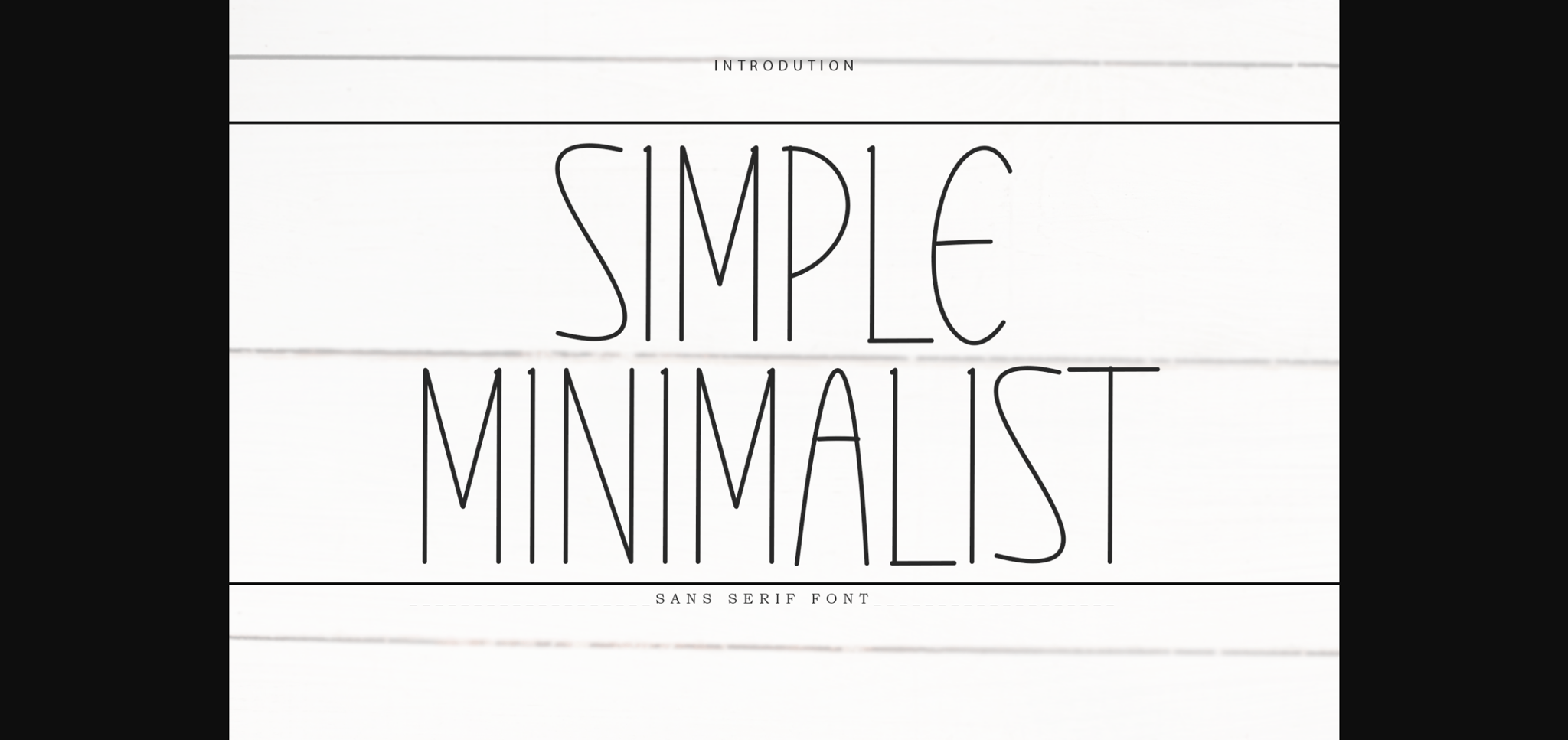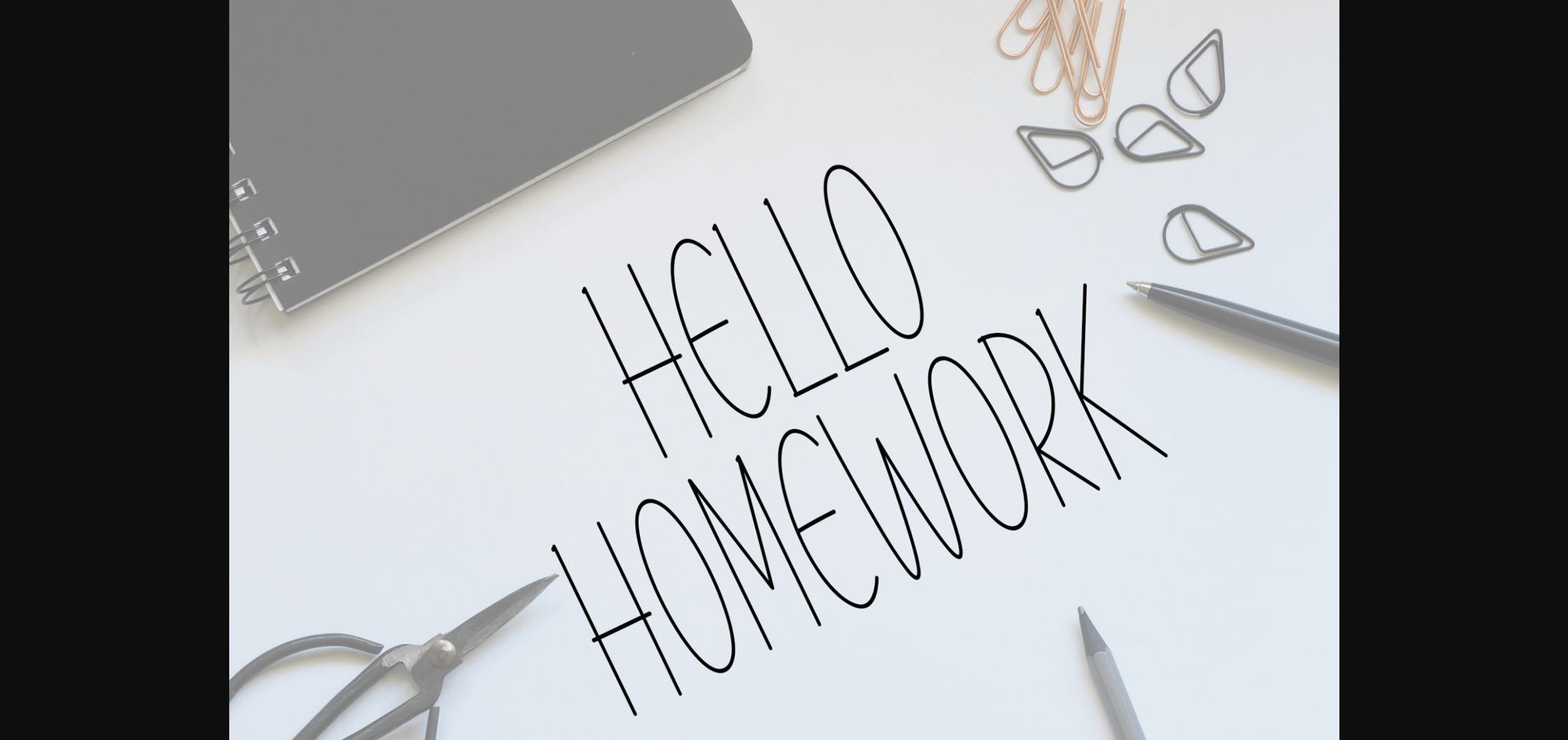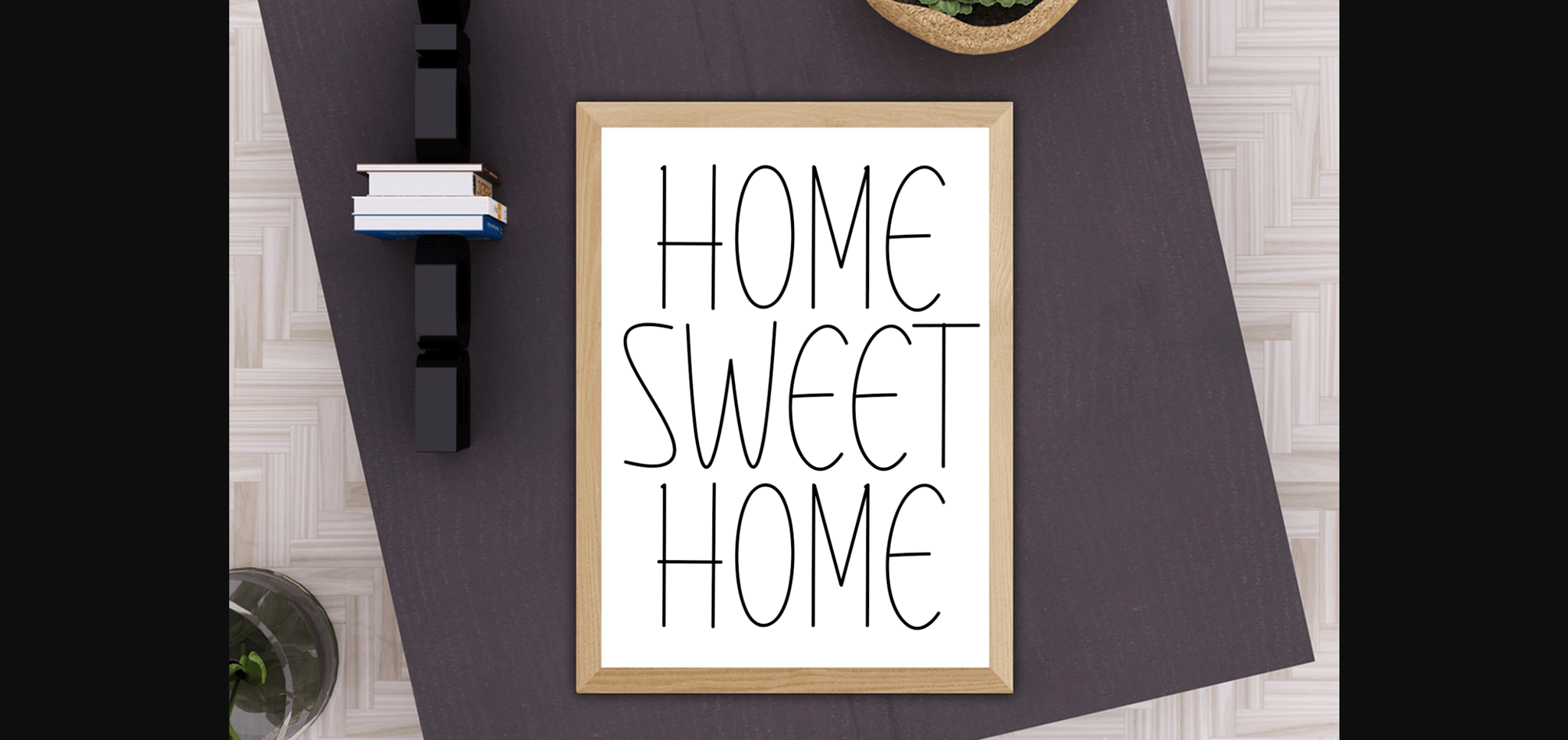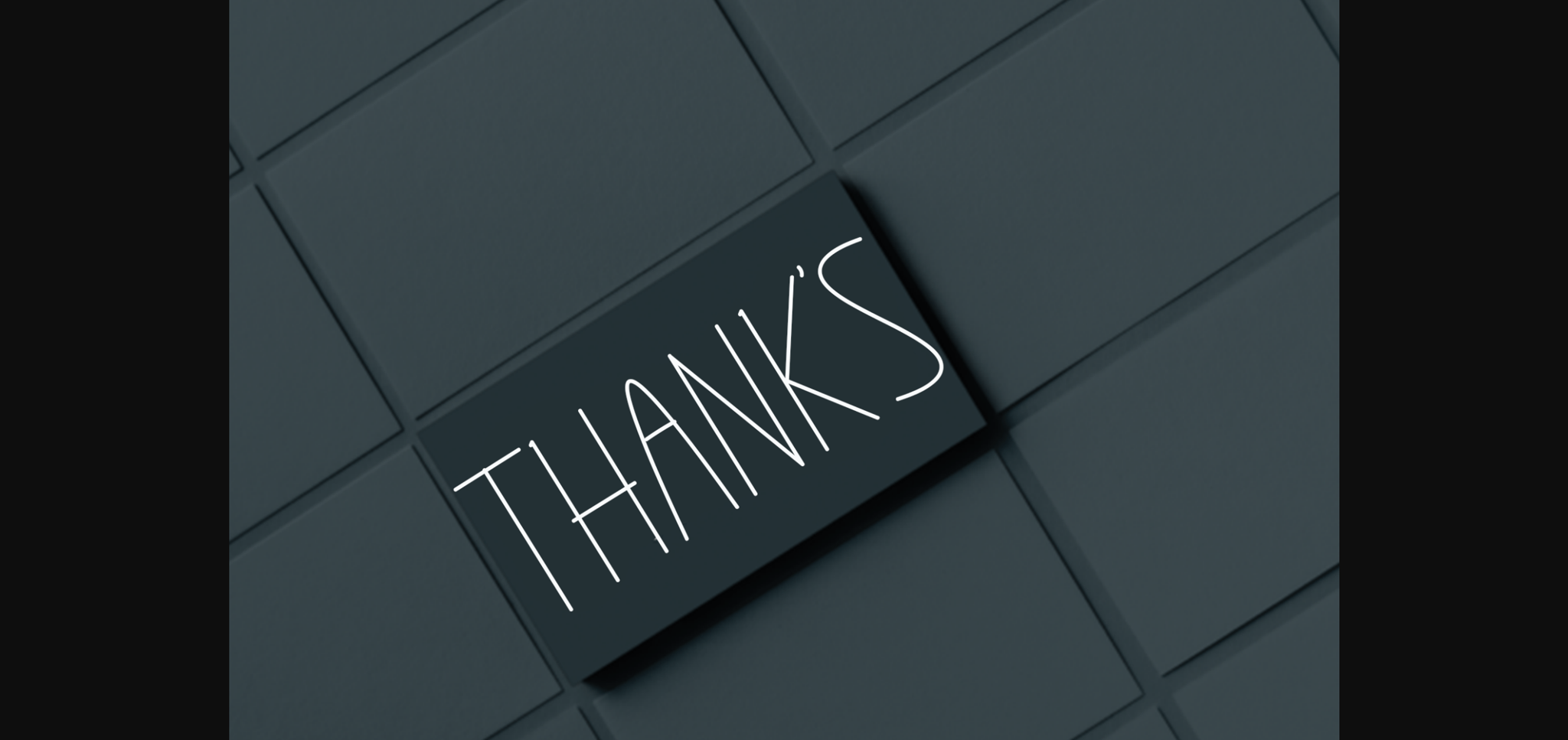
Simple Minimalist Font
About Simple Minimalist Font
Simple Minimalist is a neat and casual sans serif font. It can easily be matched to an incredibly large set of projects, so add it to your creative ideas and notice how it makes them stand out!